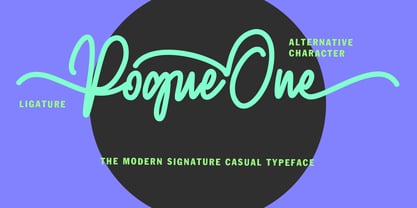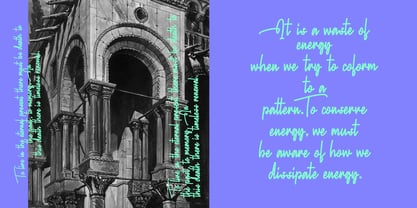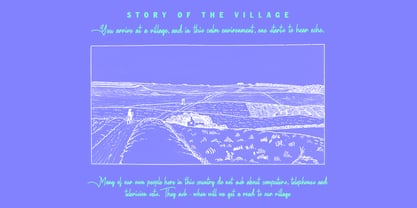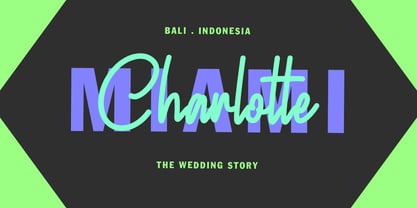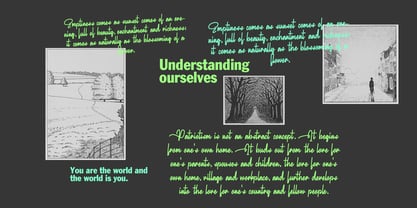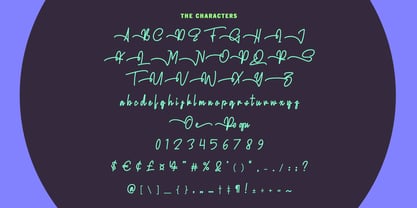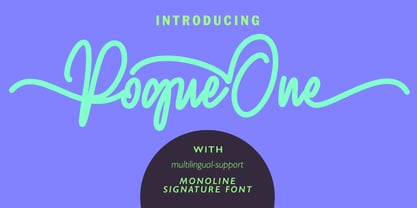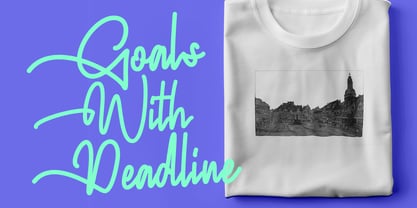
MC Rogueone
by Maulana Creative
The MC Rogueone Font Family was designed by Gilang Maulana and published by Maulana Creative. MC Rogueone contains 1 styles. More about this family
Give your designs an authentic monoline signature handcrafted feel. “Rogueone Monoline Signature Font” is perfectly suited to signature, stationery, logo, typography quotes, website header, branding and more.
Designers: Gilang Maulana
Foundry: Maulana Creative